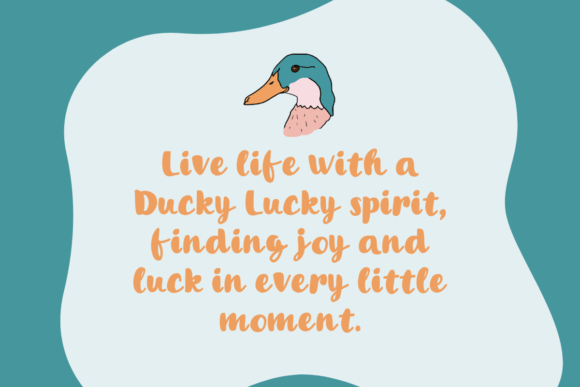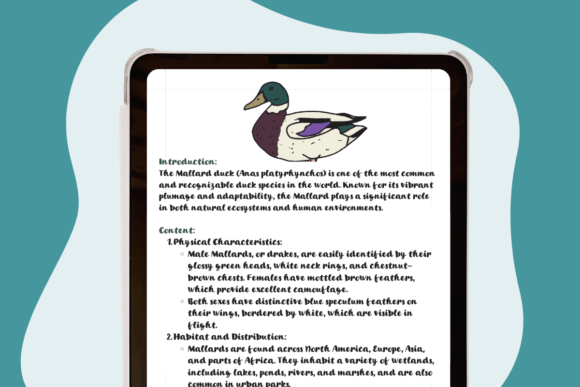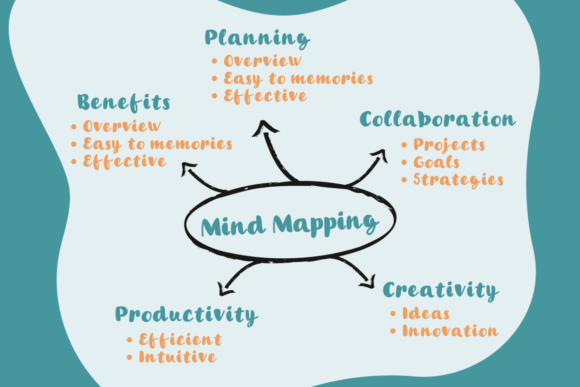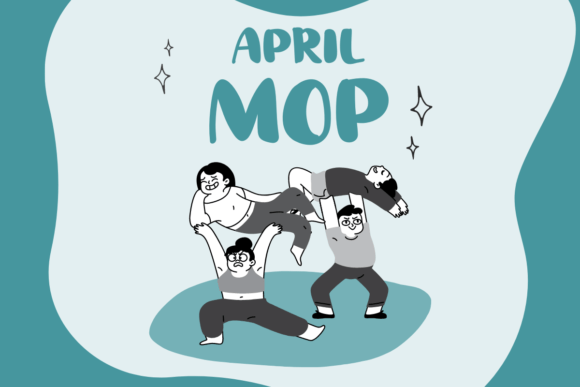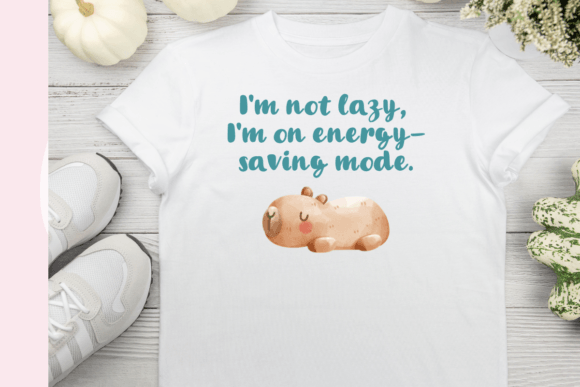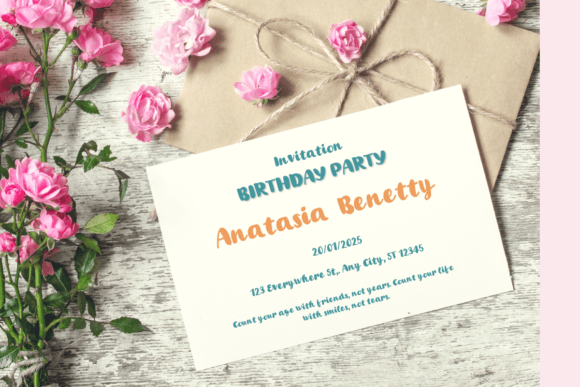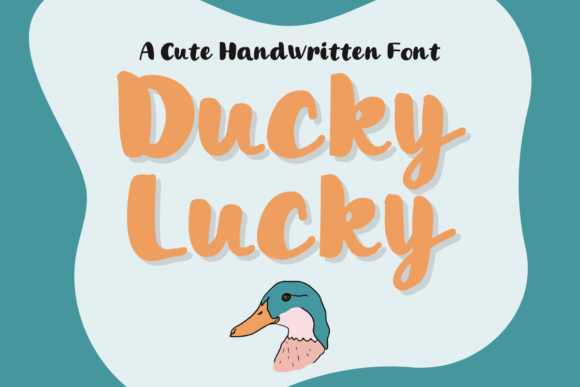
Ducky Lucky Font: The Perfect Handwritten Font for Digital Note-Taking and Creative Projects
Are you a designer, crafter, or simply a creative individual looking for a fun and cute handwritten font to elevate your digital note-taking and creative projects? Look no further than Ducky Lucky Font! This versatile font is perfect for adding a personal touch to your digital designs, from Procreate projects to blog posts, logos, branding, and so much more.
What is Ducky Lucky Font?
Ducky Lucky Font is a handcrafted, handwritten font that exudes a playful and charming vibe. Its unique and quirky style makes it perfect for a wide range of creative projects, including digital note-taking, journaling, and scrapbooking. Whether you’re a professional designer or a hobbyist, this font is sure to bring a smile to your face and inspire your creativity.
Features of Ducky Lucky Font
So, what makes Ducky Lucky Font so special? Here are just a few of its key features:
- Fun and playful style: Ducky Lucky Font has a unique, handwritten style that’s perfect for adding a personal touch to your digital designs.
- Versatile: This font is suitable for a wide range of creative projects, from digital note-taking to logo design, branding, and more.
- Easy to read: Despite its playful style, Ducky Lucky Font is easy to read, making it perfect for digital note-taking and journaling.
Uses of Ducky Lucky Font
Ducky Lucky Font is an incredibly versatile font that can be used for a wide range of creative projects, including:
- Digital note-taking: Add a personal touch to your digital notes and journals with this fun and playful font.
- Procreate designs: Use Ducky Lucky Font to create stunning Procreate designs, from illustrations to digital art.
- Blog posts: Add a touch of personality to your blog posts with this charming font.
- Logos and branding: Use Ducky Lucky Font to create unique and memorable logos and branding materials.
- Digital planners: Create beautiful and functional digital planners with this font.
- Invitations and greeting cards: Use Ducky Lucky Font to create personalized invitations and greeting cards.
- Photo albums: Add a personal touch to your digital photo albums with this font.
Why Choose Ducky Lucky Font?
So, why should you choose Ducky Lucky Font for your creative projects? Here are just a few reasons:
- Unique style: Ducky Lucky Font has a unique and playful style that’s sure to stand out from the crowd.
- High-quality: Ducky Lucky Font is a high-quality font that’s designed to produce crisp and clear results.
In conclusion, Ducky Lucky Font is a fun and versatile handwritten font that’s perfect for digital note-taking and creative projects. Its unique style, ease of use, and high-quality design make it an excellent choice for designers, crafters, and creatives of all levels. Whether you’re looking to add a personal touch to your digital designs or create stunning visual content, Ducky Lucky Font is sure to inspire your creativity and bring a smile to your face.